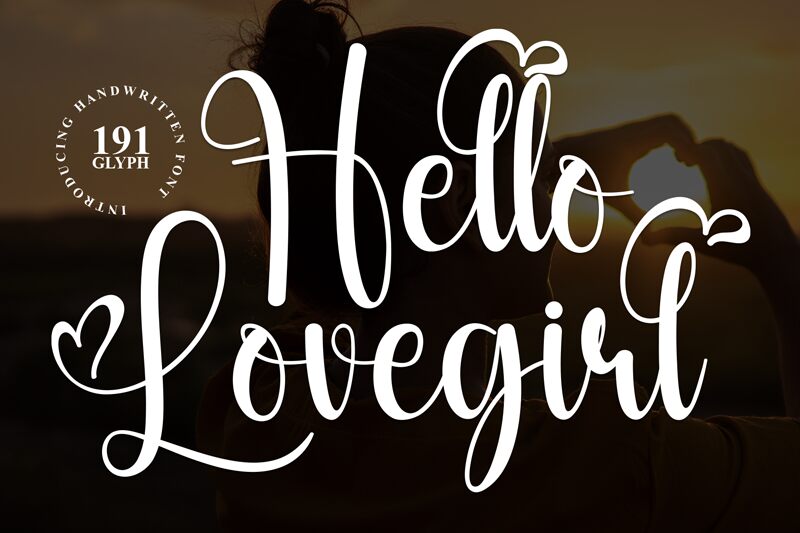
Hello Lovegirl
Hello Lovegirl font by Scratchones is a warm, elegant handwritten typeface with whimsical charm. Its flowing script and casual appeal make it both a delightful and contemporary choice. The font showcases a delicate balance between informality and sophistication, resulting in an inviting appearance that captures attention.
This free handwritten font is ideal for greeting cards, invitations, branding projects, logos, product packaging, advertising materials, social media graphics, book covers, website design elements and even clothing labels.